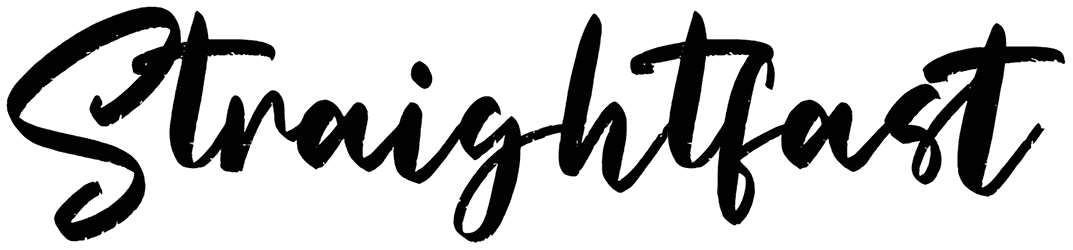
Straightfast Font
Put simply, there’s nothing better than brush fonts that are crowd-pleasers for many potential audiences in designing warm graphics like posters, apparel, logos, branding, and more.
Its cursive paintbrush comes to draw romantic scribble designs in a friendly arrangement and play up your fantasy typography as well. Don’t dwell on numbers lacking; Straightfast can pull out all stops to accentuate your artwork through its natural sense.